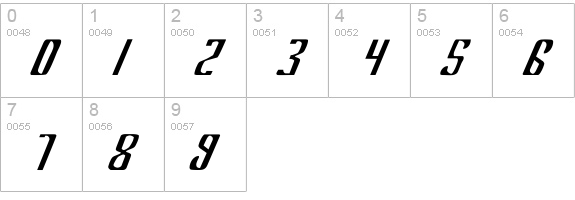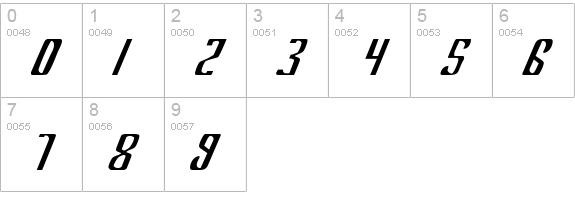
Department K Font Details
Department K font is a versatile and modern typeface that combines elegance with a touch of sophistication. Its sleek lines and sharp edges make it perfect for a wide range of design projects, from branding to editorial design. The font features a full set of uppercase and lowercase letters, numbers, and punctuation marks, allowing you to create stunning layouts with ease. What sets Department K font apart is that it is not only stylish and functional but also free to download. Yes, you read that right! This top-quality font is freely available for download at FontsMarket.com, making it accessible to everyone looking to add a touch of class to their designs without breaking the bank. Whether you're working on a website, poster, logo, or any other creative project, Department K font is sure to elevate your design to the next level. Download it now and unleash your creativity with this exceptional typeface.